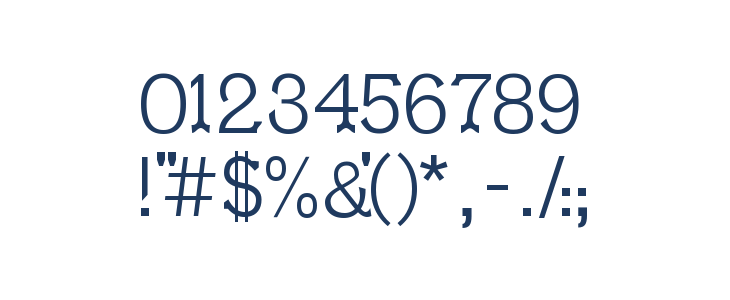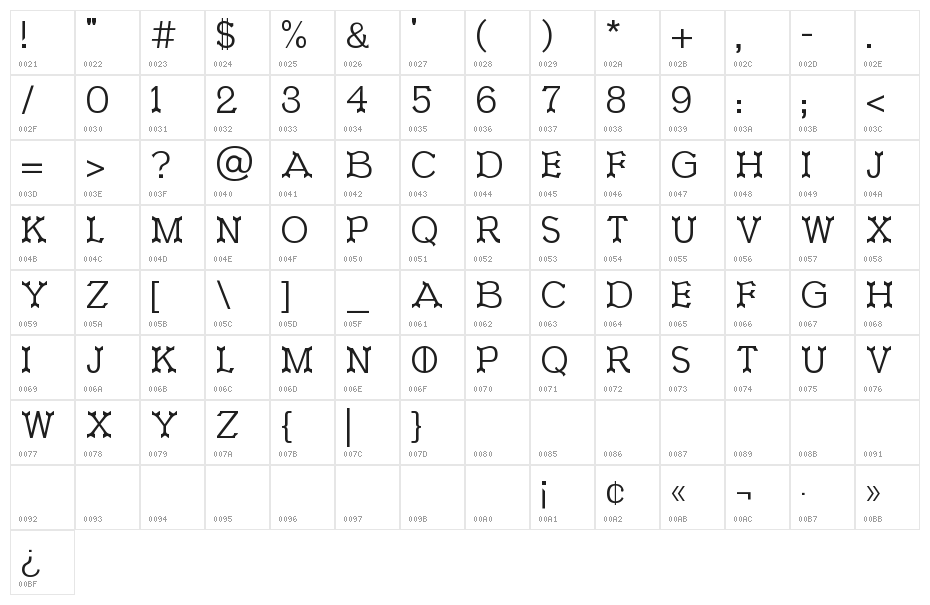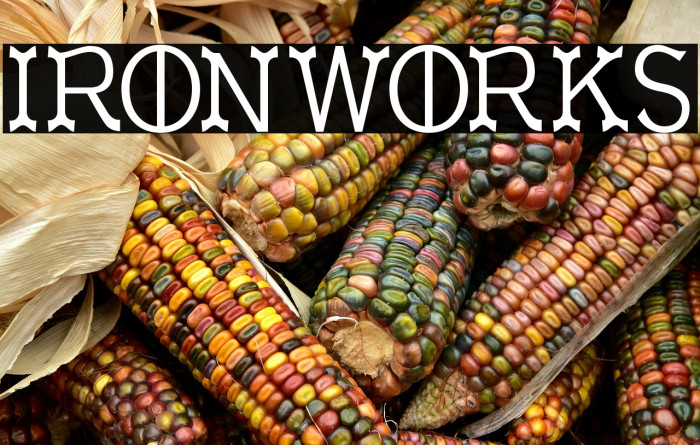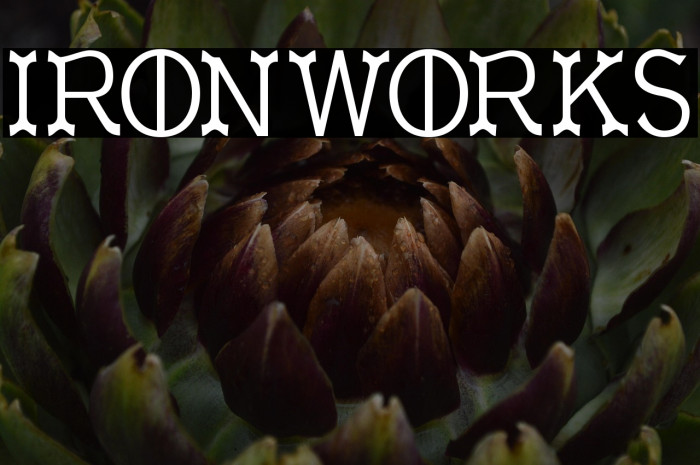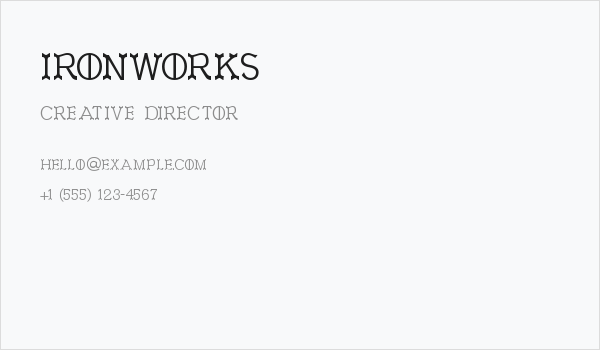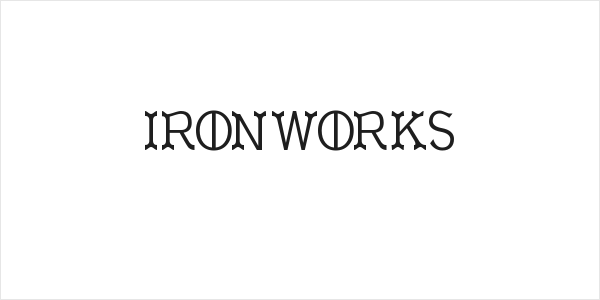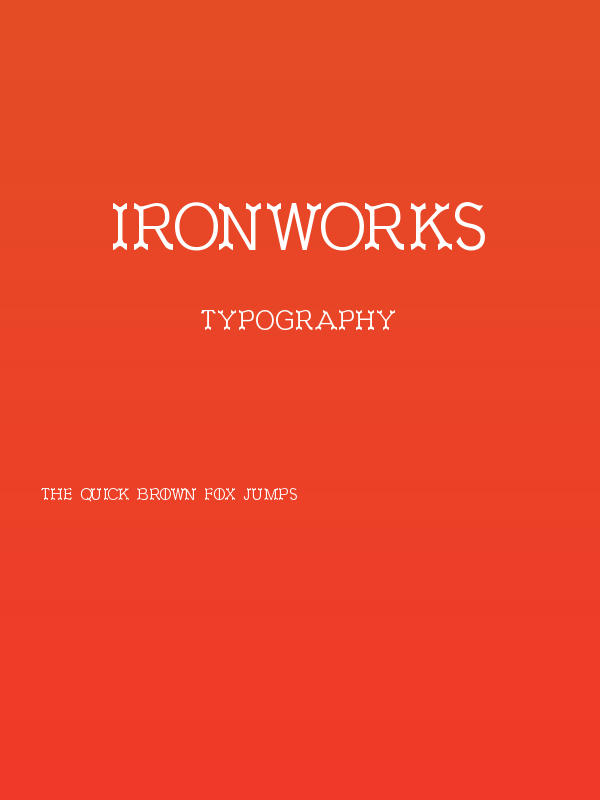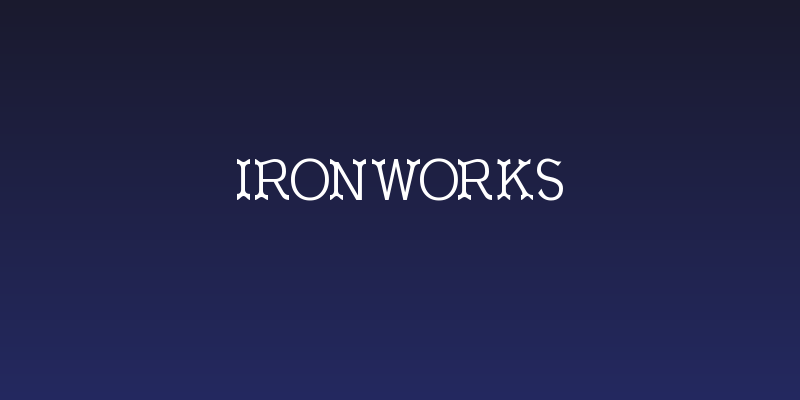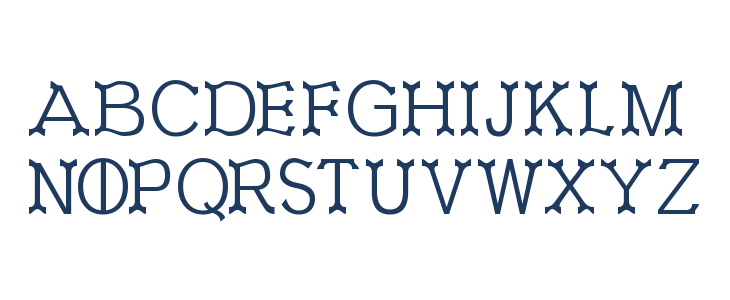
Ironworks Font
Ironworks Description
This font features a unique and decorative style with a distinct industrial flair. The characters are adorned with small, pointed serifs that give them a sharp, mechanical appearance. The uppercase letters are bold and commanding, while the lowercase letters maintain a consistent style with slightly less emphasis. The numerals are equally bold, ensuring they stand out in any design. Special characters are crafted with the same attention to detail, making them suitable for a variety of creative applications. The overall design is reminiscent of ironwork, with a strong, sturdy feel that is both modern and vintage.
| Overall Style | Industrial, Vintage |
| Proposed Projects | Ideal for branding, posters, signage, and any project requiring a strong, industrial aesthetic. |